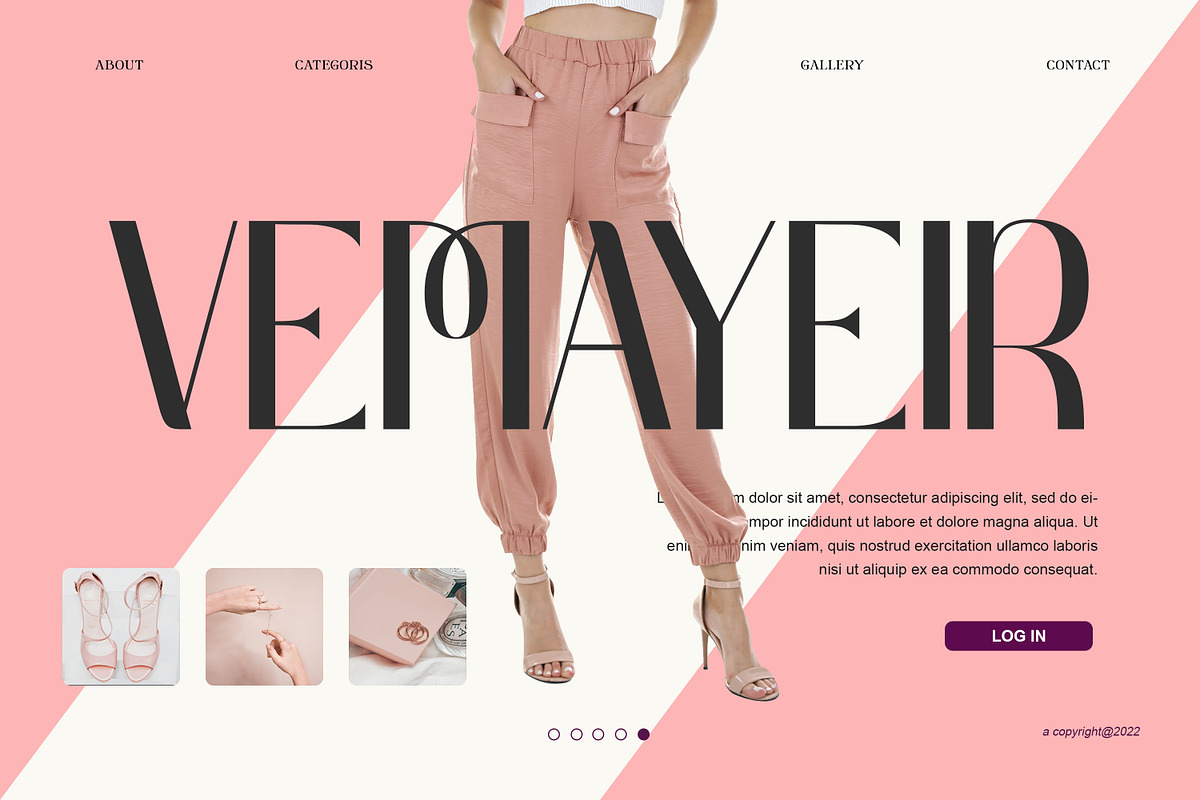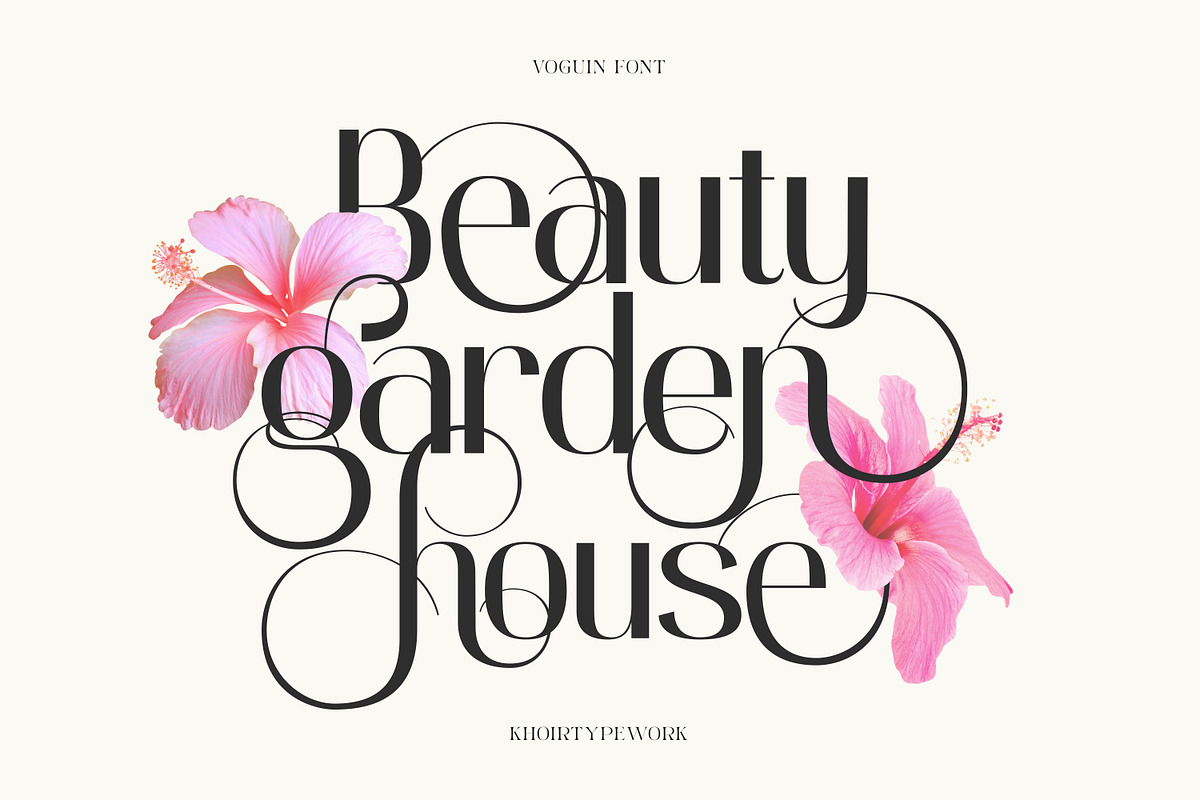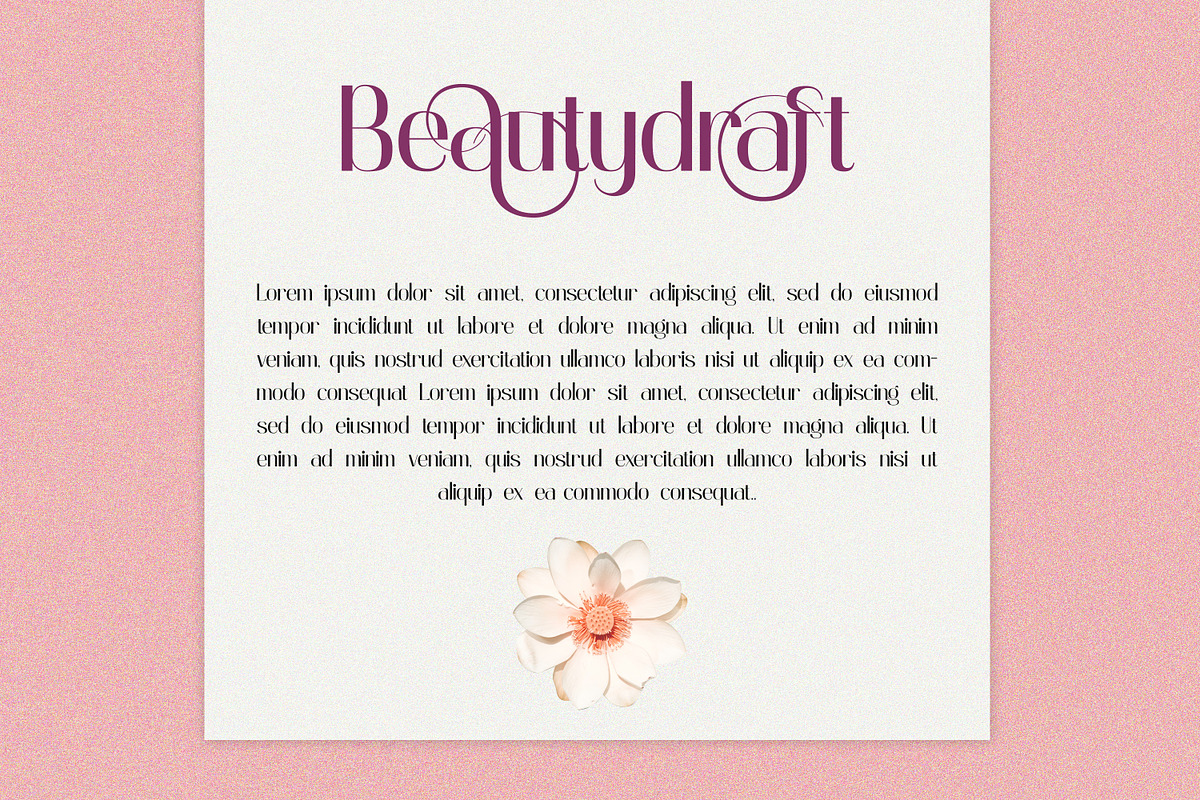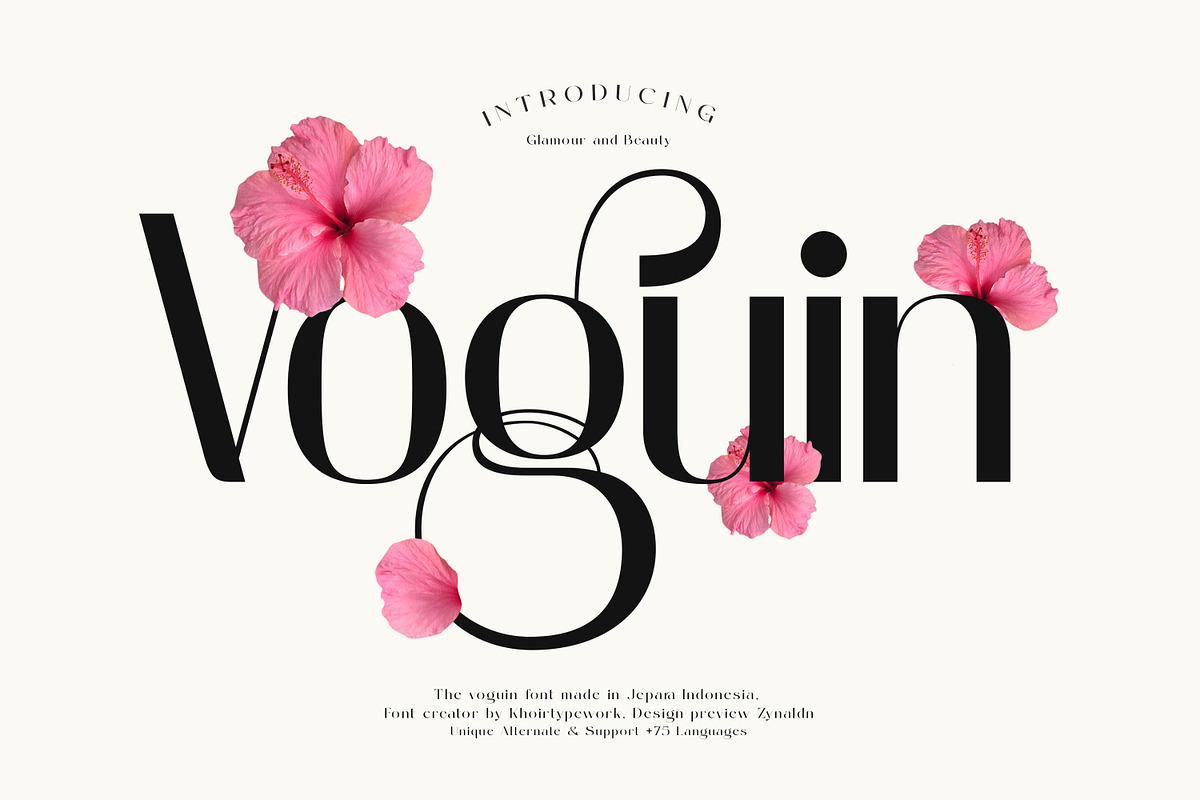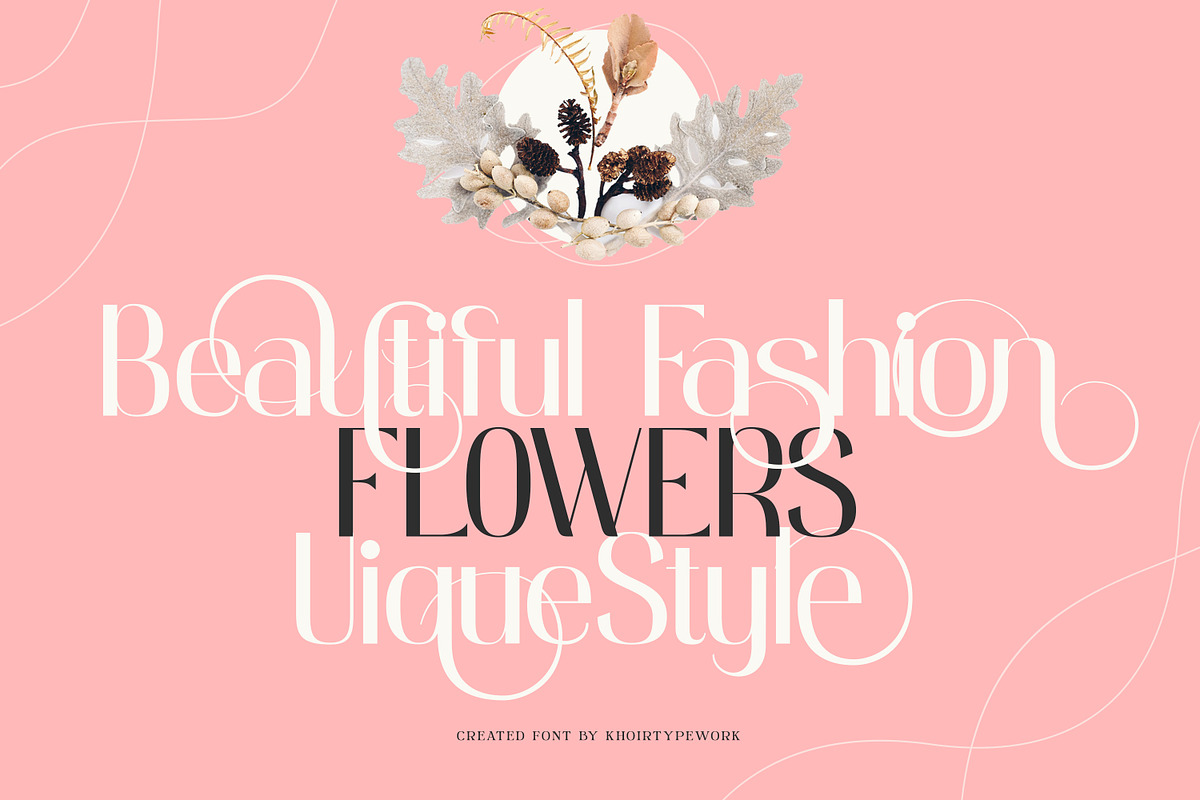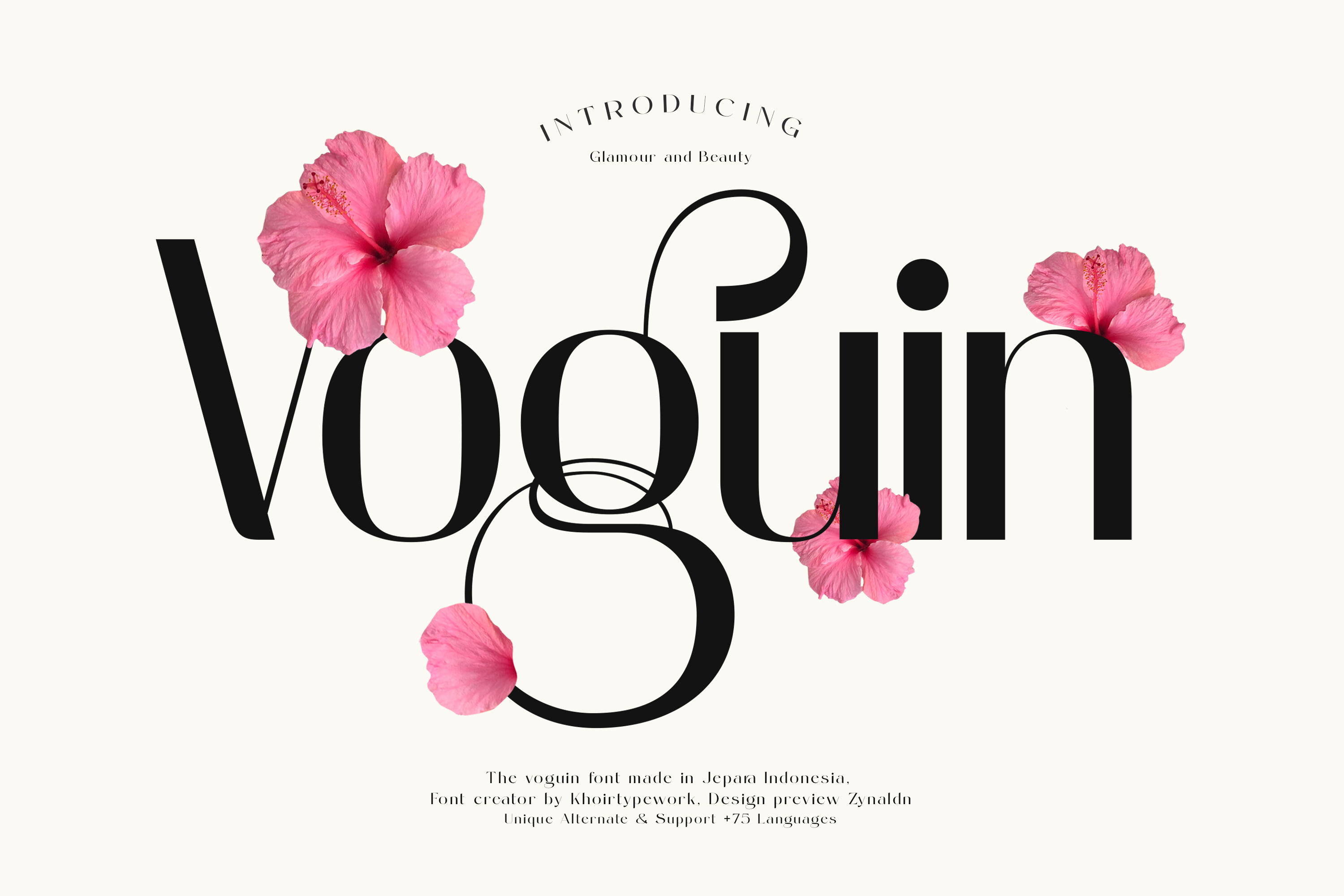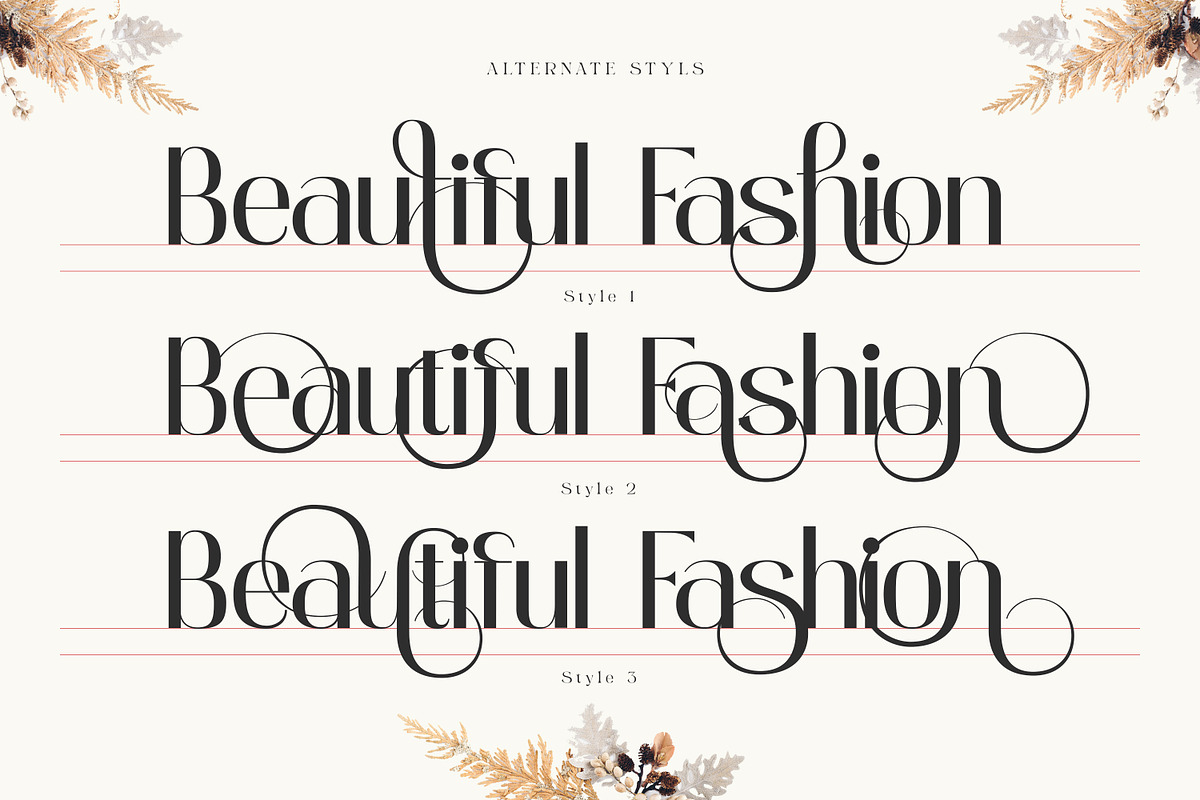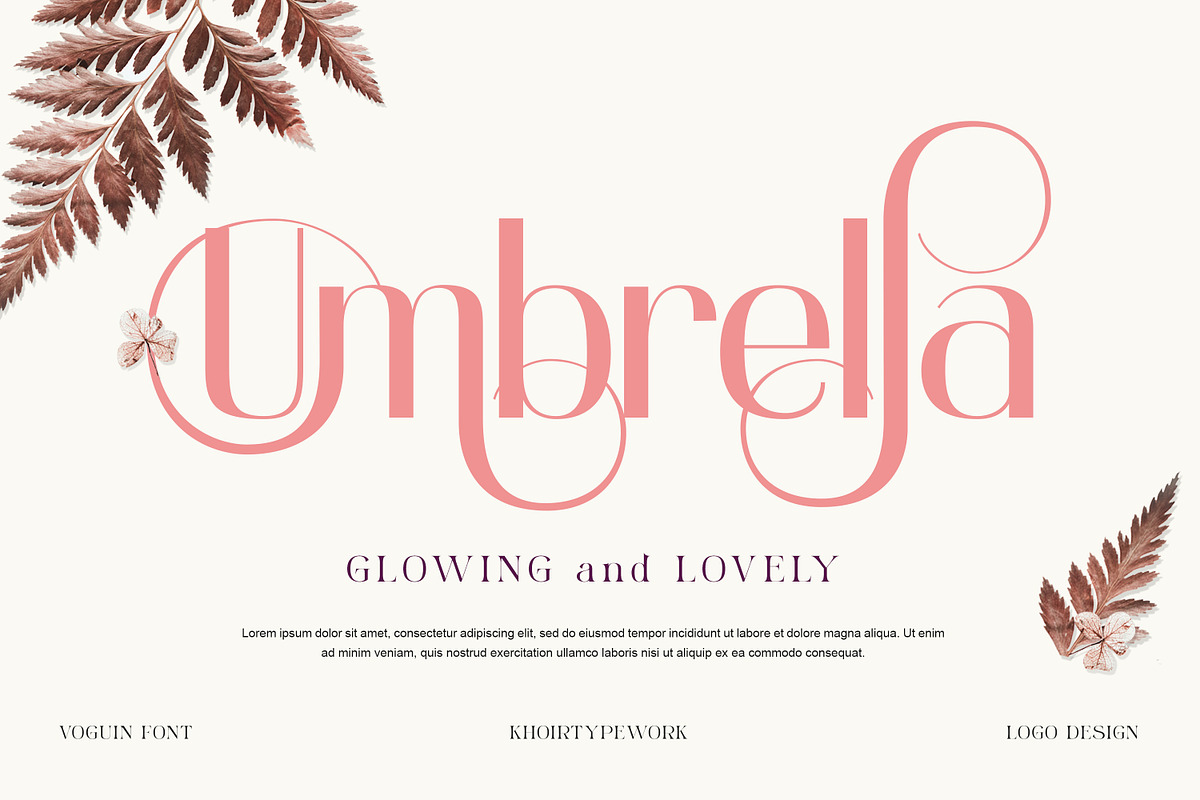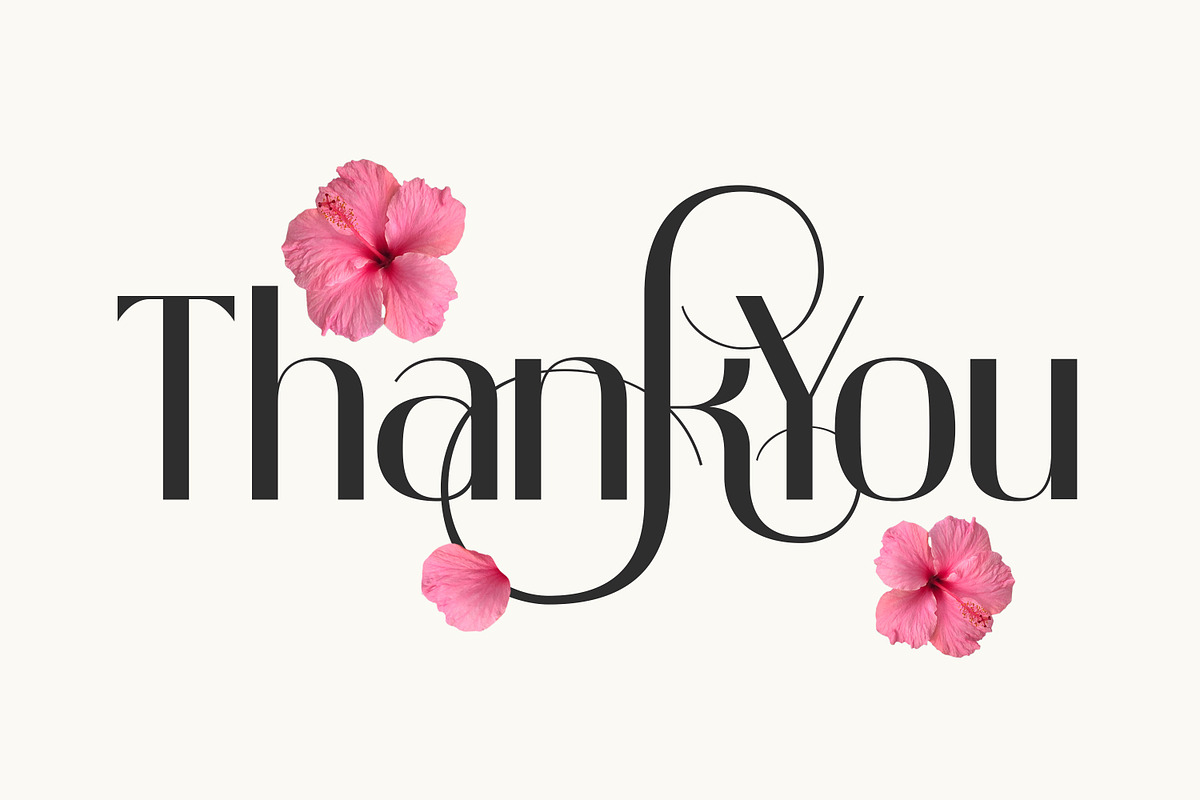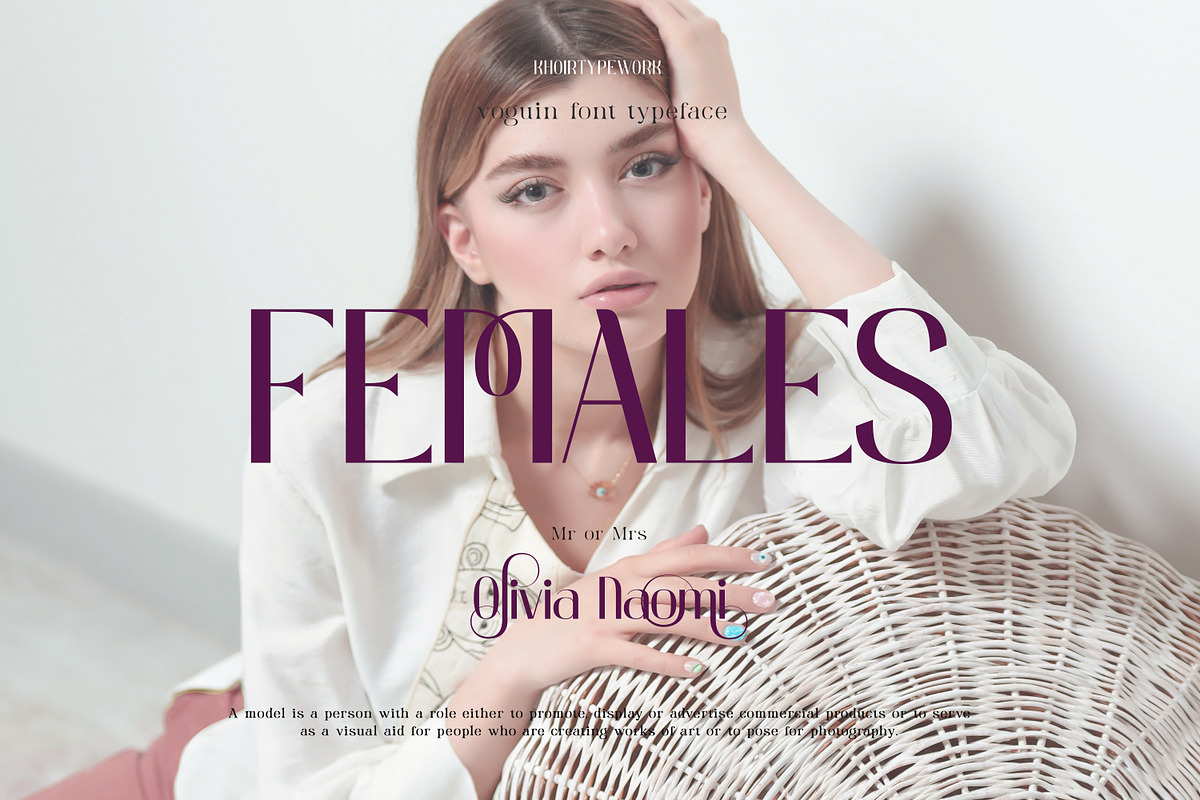
Voguin - Beauty Font
Voguin Beauty, a sans serif font that carries a graceful theme in every letter, coupled with a beautiful alternative font option, combines the thickness and thinness of the font in the letters so that this font is very good to use in any of your projects.
- Uppercase Characters
- Lowercase Characters
- Support 75+ Language